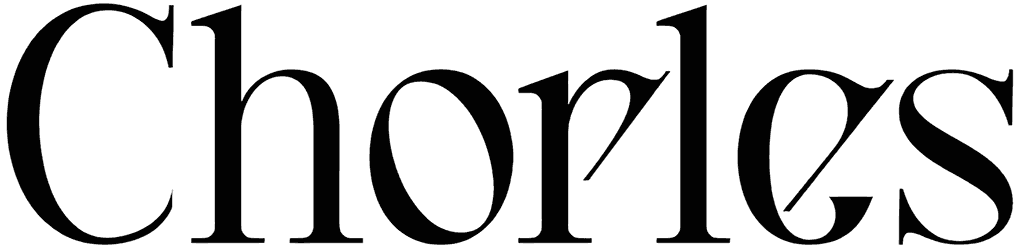
Chorles Font
Chorles font brings elegant serif styling into focus with refined proportions and a graceful editorial rhythm. Its poised letterforms make headlines feel sophisticated without becoming overly formal, giving names, titles, and short phrases the polished presence of a luxury masthead or beautifully art-directed campaign.
Use Chorles font for fashion branding, fragrance packaging, wedding stationery, boutique identities, magazine covers, or premium hospitality design. Pair this magazine font with warm ivory, deep burgundy, muted gold, minimalist photography, and generous spacing. Subtle embossing or foil details can make its elegant serif character feel even more distinctive